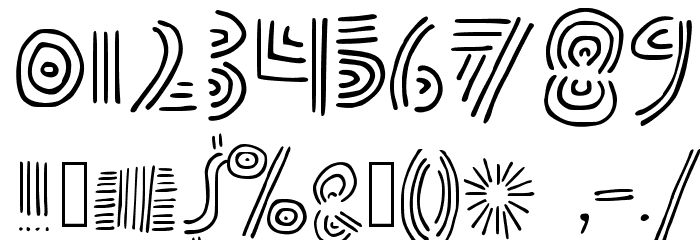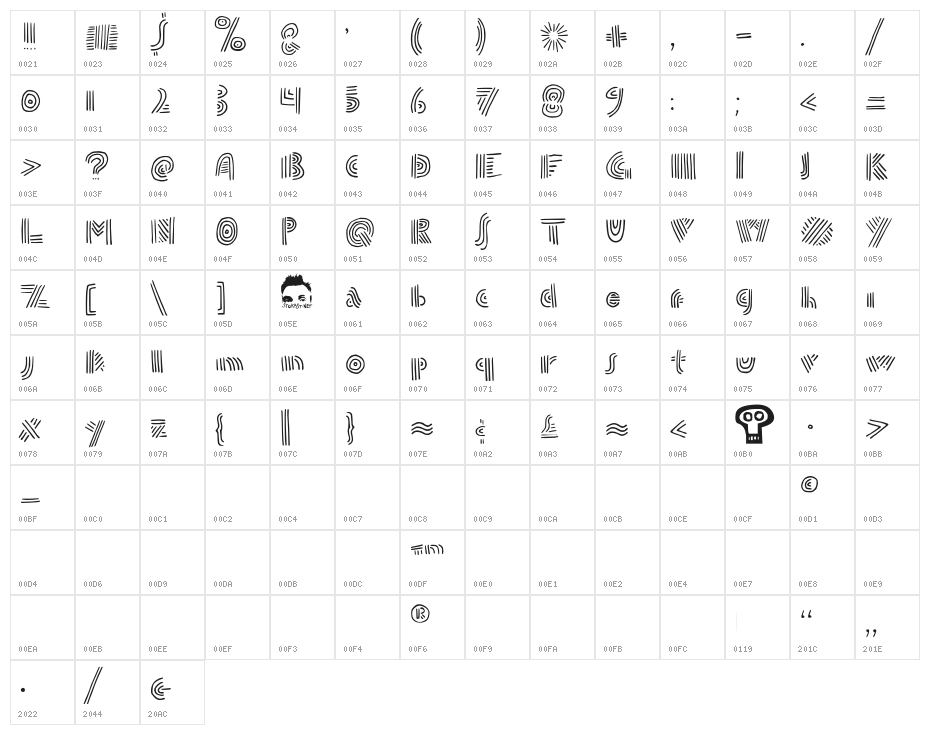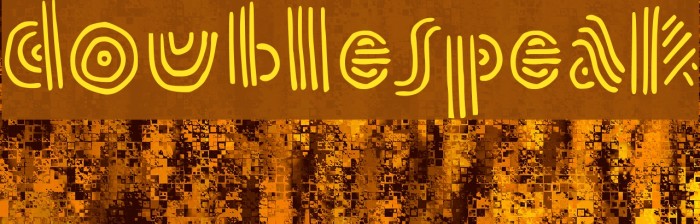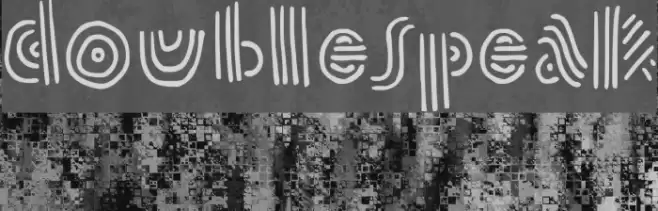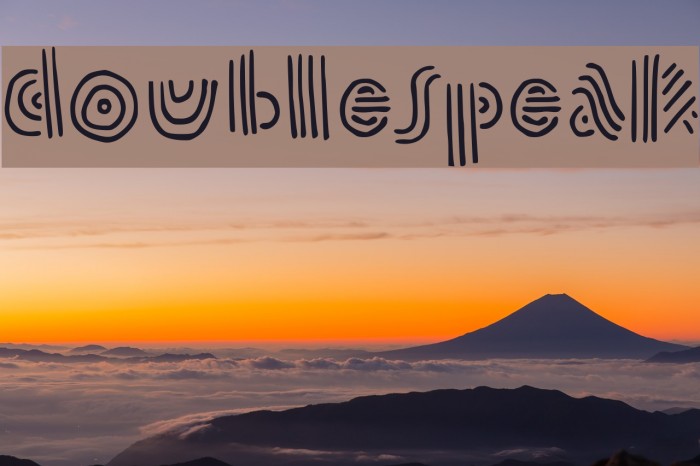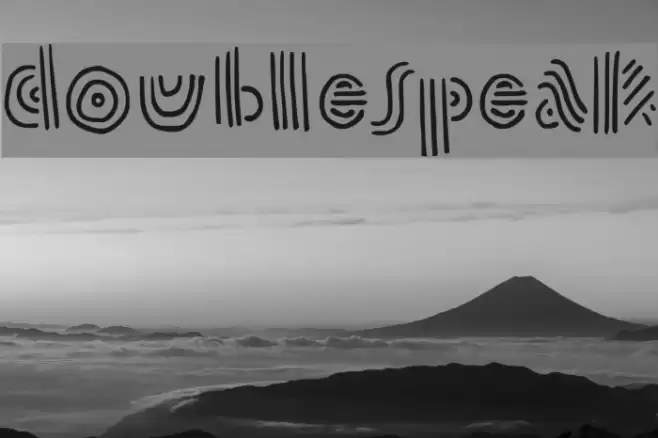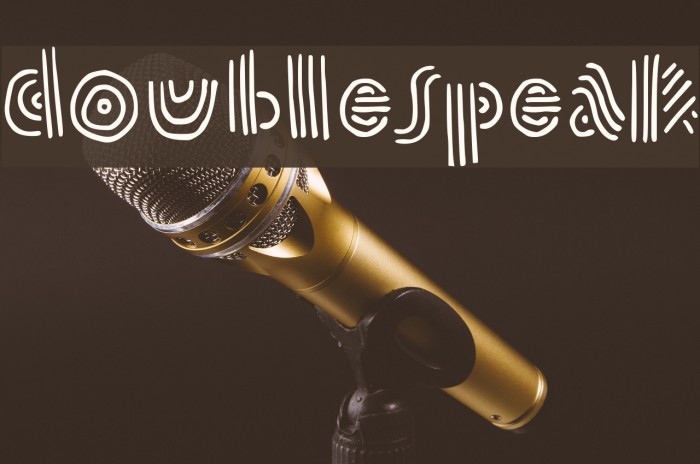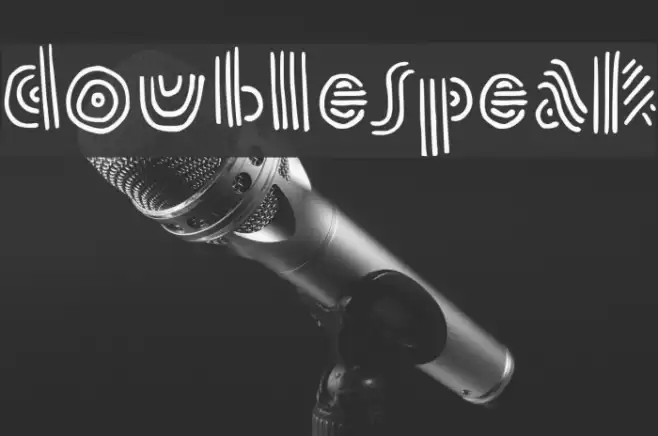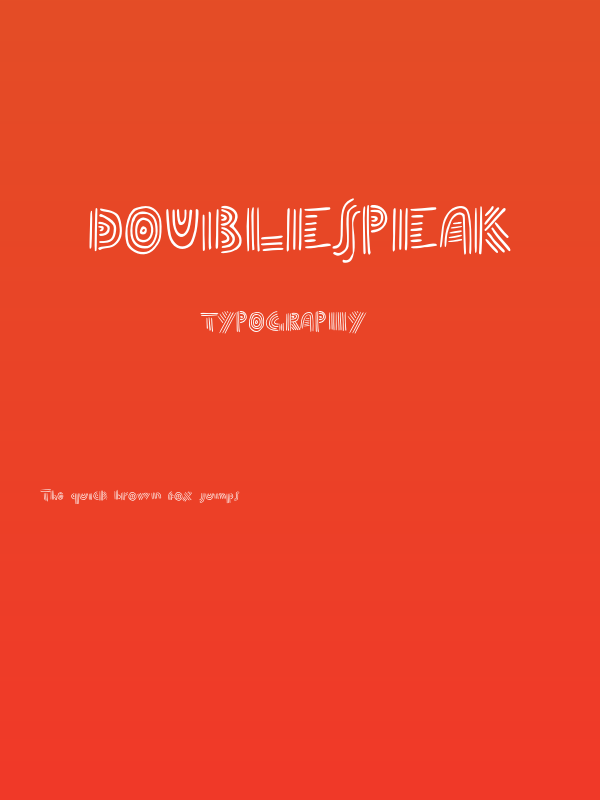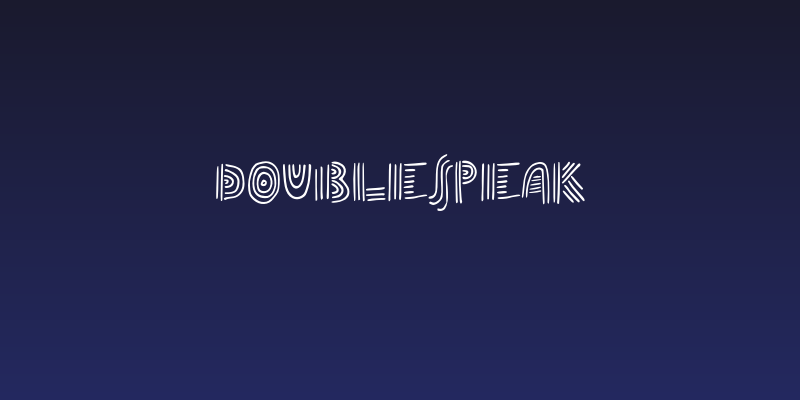
doublespeak Description
This font features a unique and artistic design characterized by multiple parallel lines forming each character. The letters and numbers are constructed with a series of vertical and diagonal strokes, creating a dynamic and visually intriguing appearance. The style is highly decorative, with a playful and modern twist that makes it stand out. The characters maintain a consistent height and width, providing a balanced and cohesive look across the entire set. The font's distinct line-based design gives it a sense of movement and energy, making it suitable for creative and bold applications.
| Proposed Projects | Ideal for posters, album covers, branding projects, and any design work that requires a bold and artistic touch. |